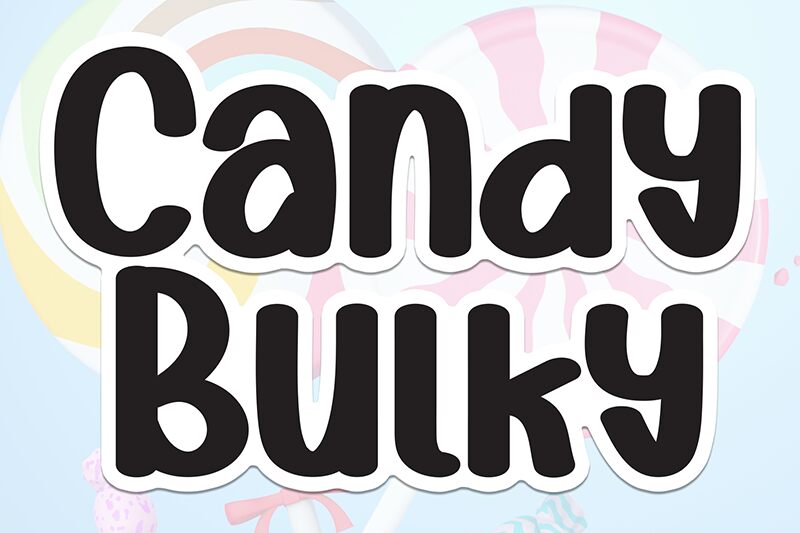
Candy Bulky
Candy Bulky font by Scratchones is a free handwritten font with a bold weight. The vintage-inspired typeface engages an inviting appearance through its rounded edges, retro feel, and cheerful yet friendly design which makes it approachable and easy on the eyes.
With such features that are great for readers of all ages, they’ll look stunning in books covers, comic books, schoolbooks or coloring books; branding designs for cereal boxes or toy stores; apparel items; invitations; posters.